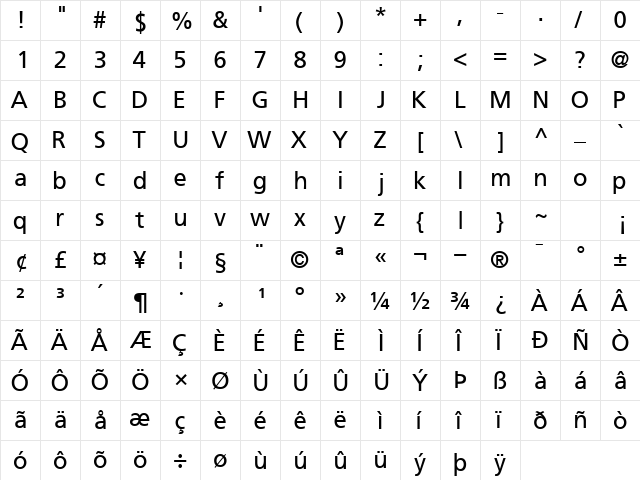
PalmaSSK Regular
Design Context for PalmaSSK Typeface
PalmaSSK takes a measured approach to typography — its balanced proportions and neutral character make it a reliable workhorse for both digital and print work.